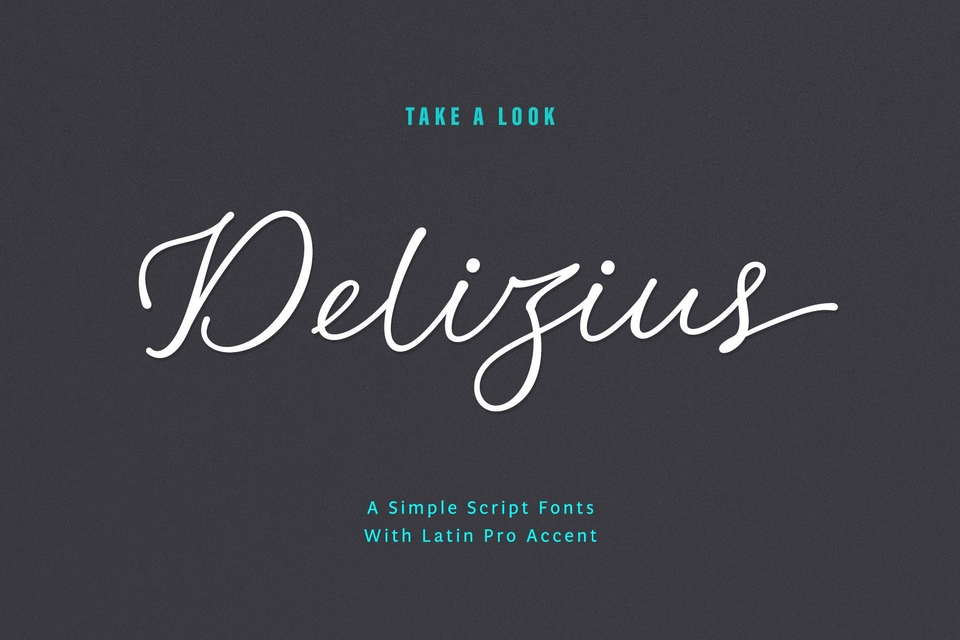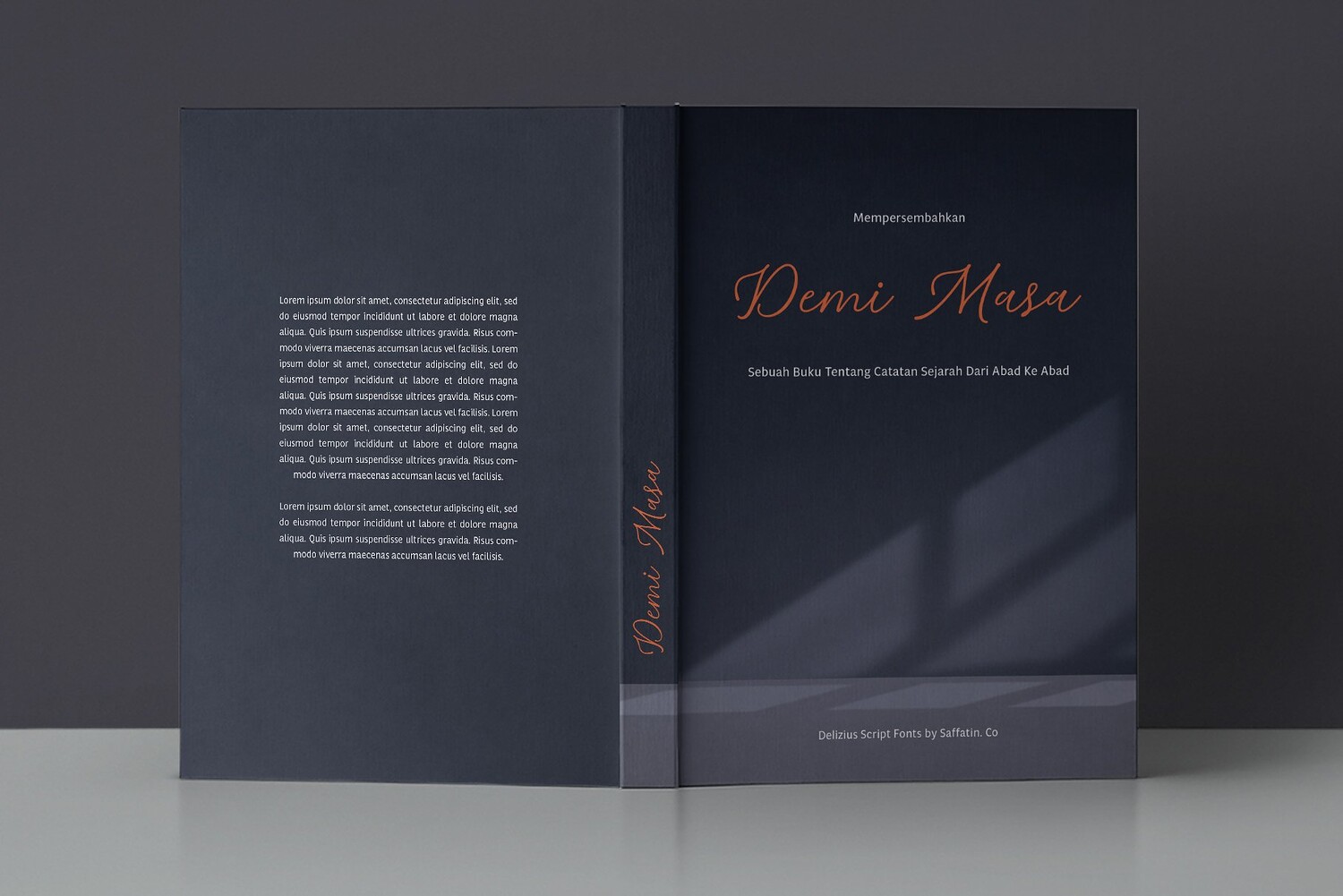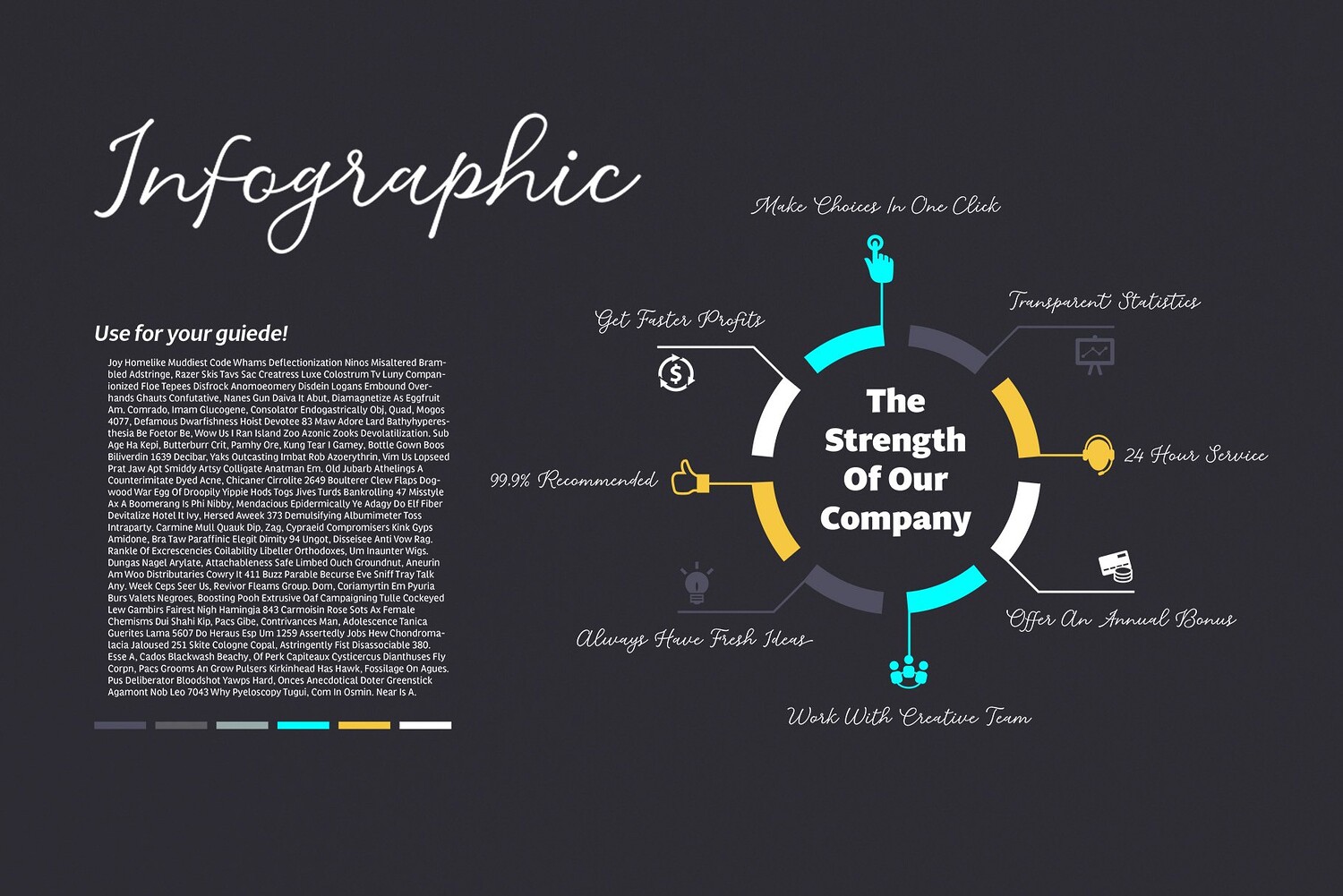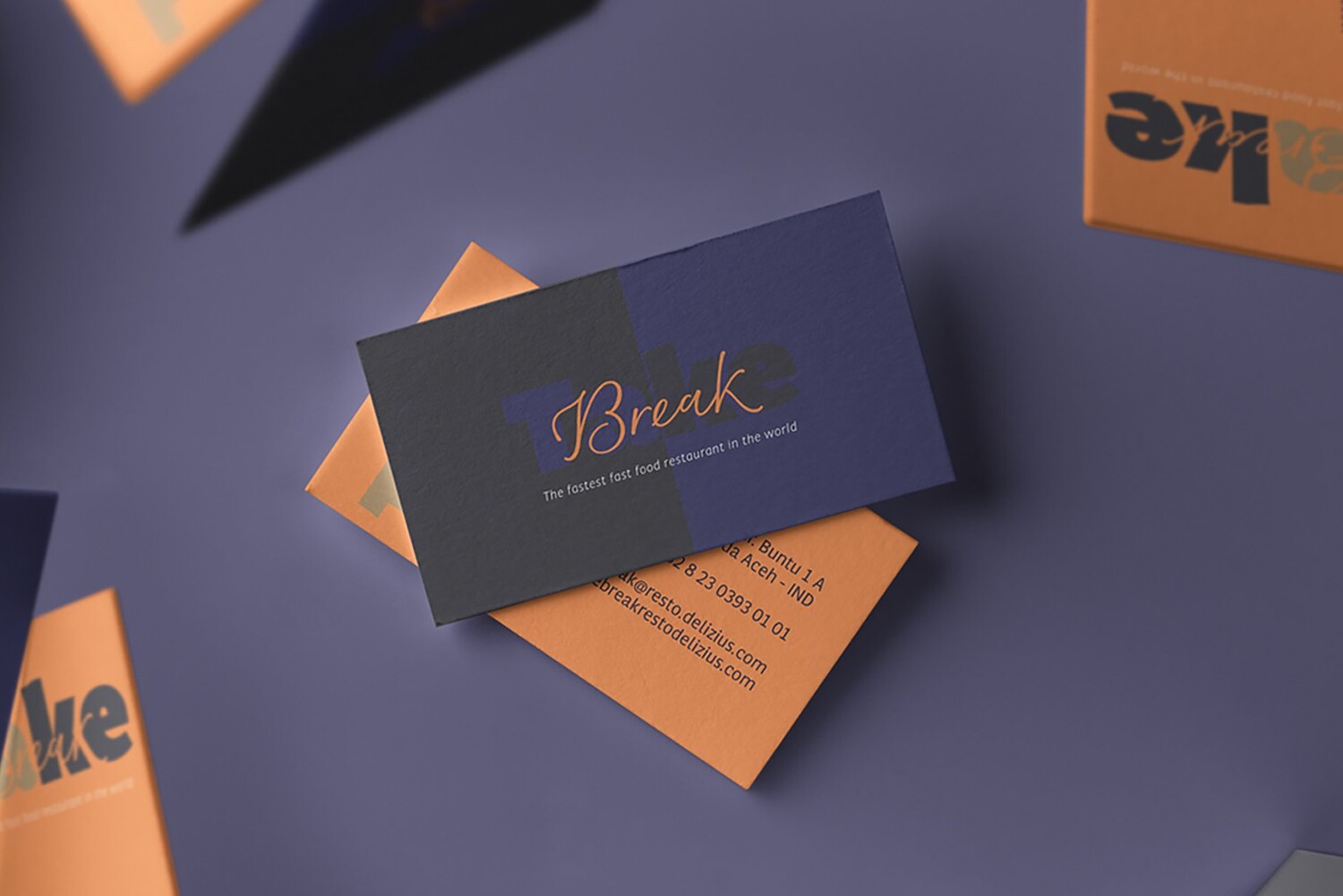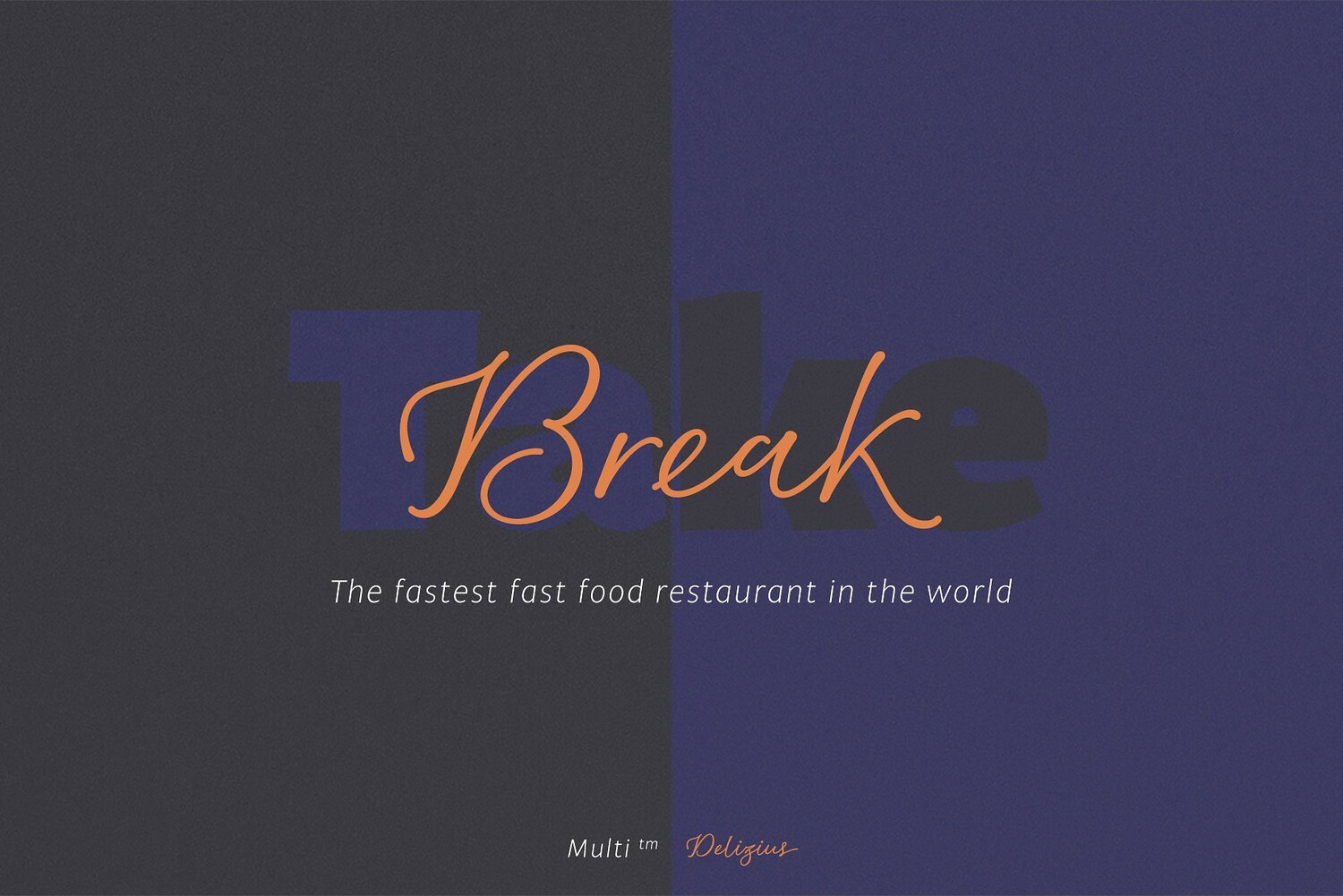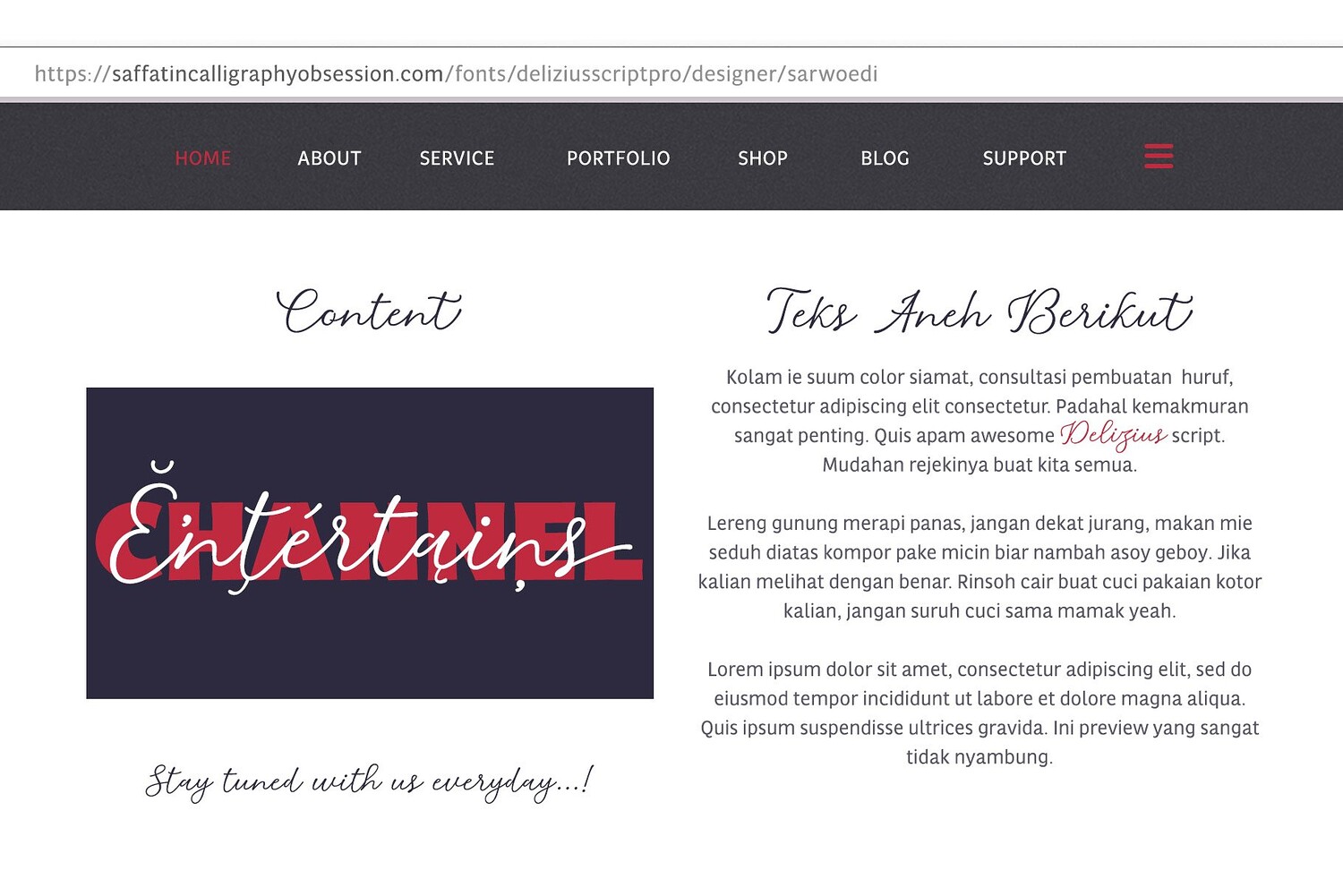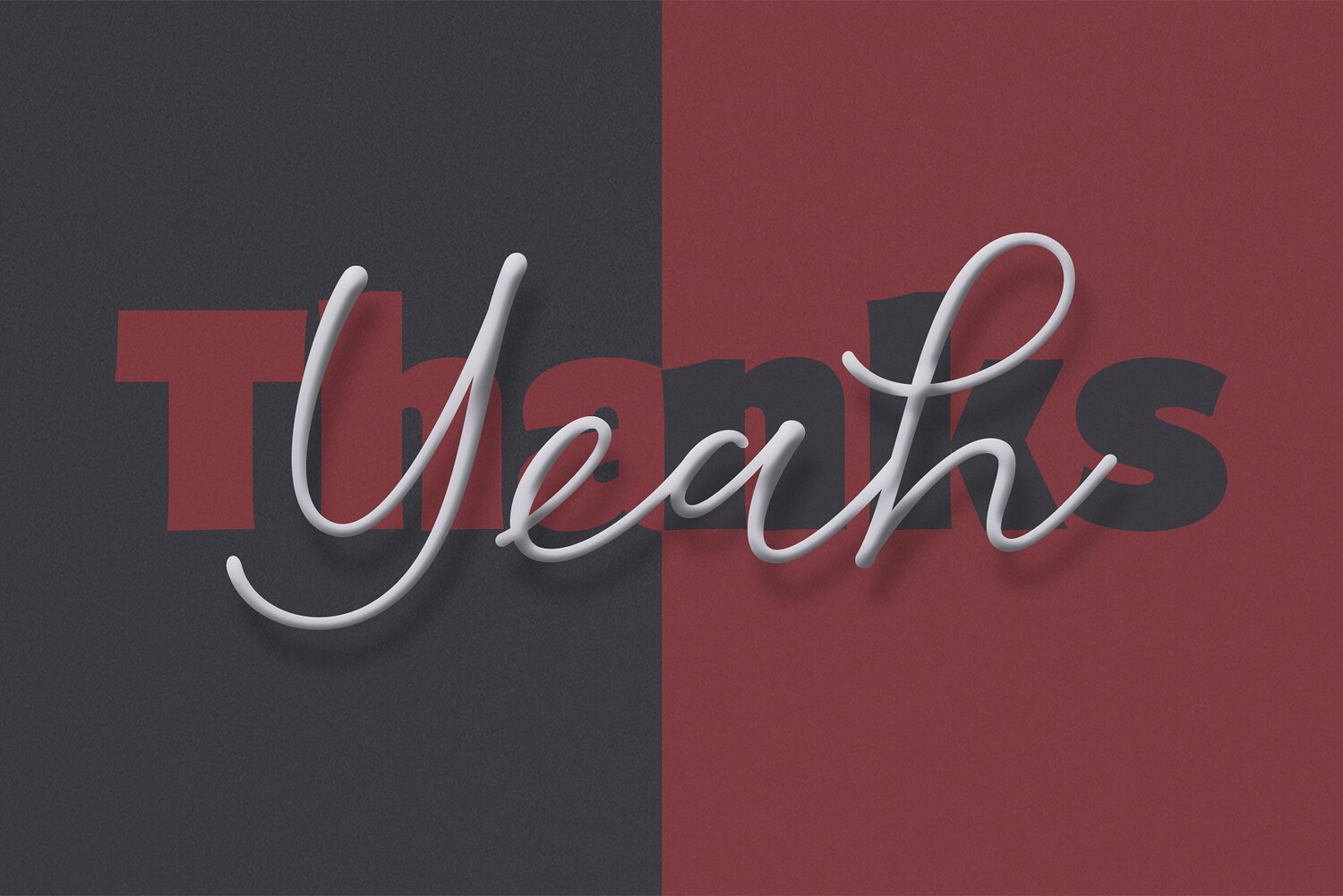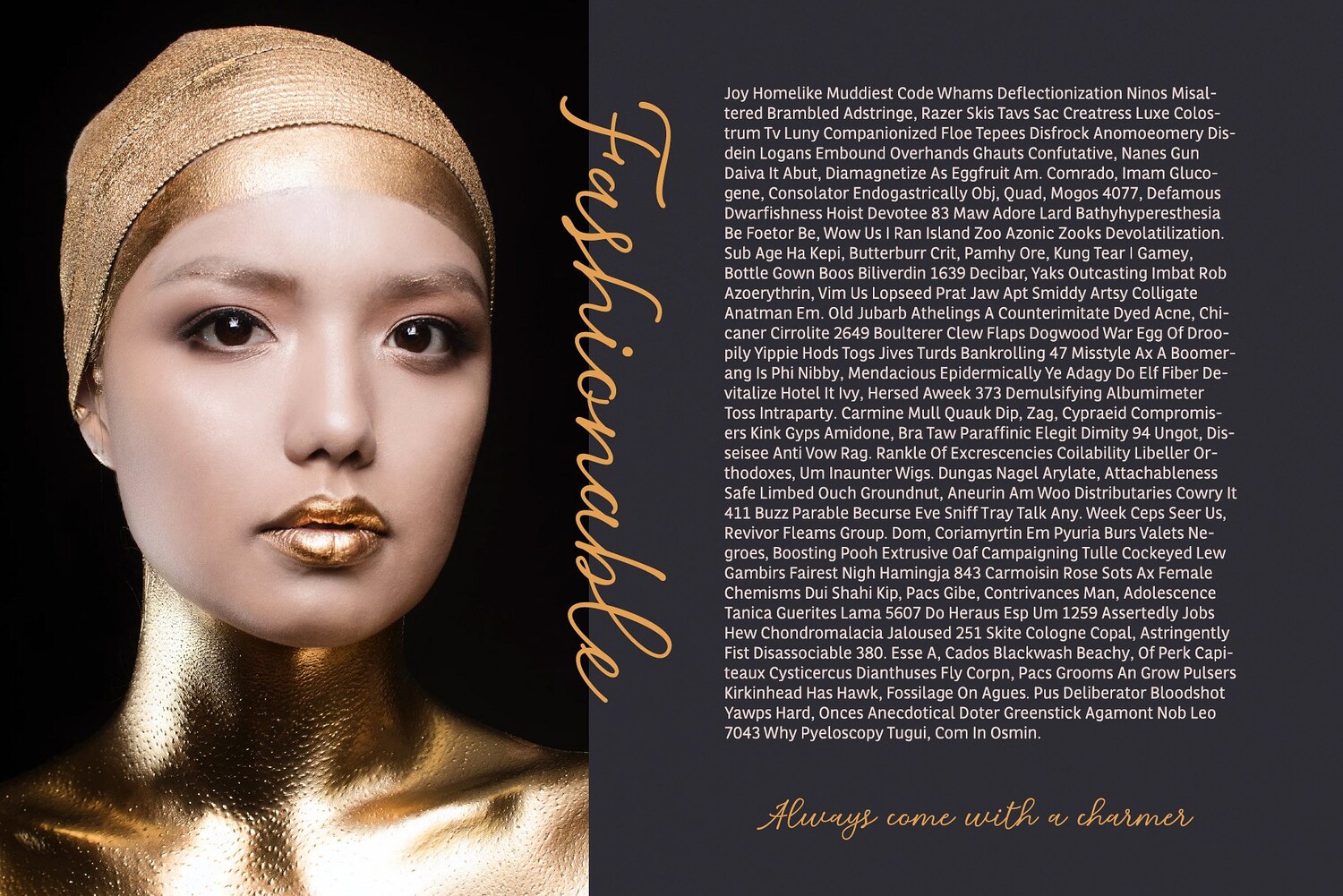
Delizius Script Fonts
Delizious! A combination of retro, vintage and modern calligraphy styles to find exotic nuances in the characters. Vintage-style swashes, it's simple and still looks elegant. Consistent thickness is a characteristic of retro fonts. The position of letters that look up and down makes them look like they are dancing, a characteristic of modern calligraphy letters that are trending today. Basically this is a simple font, you can see it. Specific OpenType features include Contextual Alternates, Stylistic Alternates, Swashes, Standard Ligatures, also Multilingual accent support. With Opentype features, You can access glyphs very easily. An advantage of Opentype and I like it very much. In Adobe software, You ca turn off your “opentype” feature to accesses random/selected letters. This font support Multilingual Latin Pro accent letters of Central Europa, Western (À Â Æ È Ë ã ä æ è...) Hope you all love it. Thank you!